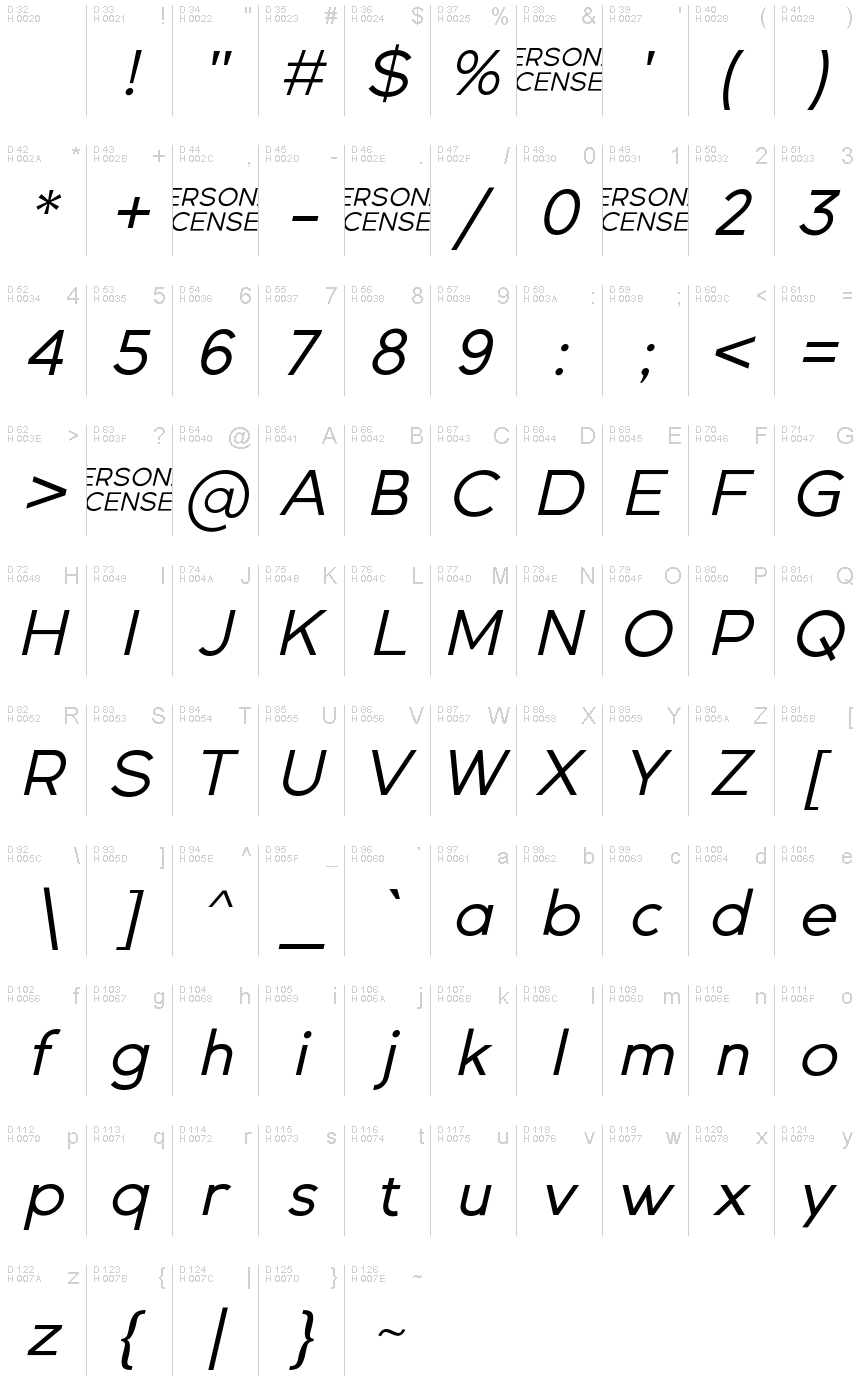
Gexo Sans Italic
Gexo Sans Italic, crafted by Java Pep, embodies a sleek, contemporary flair. This sans serif font boasts an expanded form that exudes confidence and spaciousness. Its artful italicization adds a dynamic twist to the already distinctive letterforms, creating an engaging rhythm in written text.
The font's expanded style lends itself well to creative headings and display use where a touch of modern elegance is desired. Its clarity and open character spacing make it equally suitable for digital interfaces or print materials that require both legibility and character.
Gexo Sans Italic's aesthetic appeal lies in its balance between professional functionality and stylish expressiveness, offering versatility for branding, advertising, editorial designs, and more.